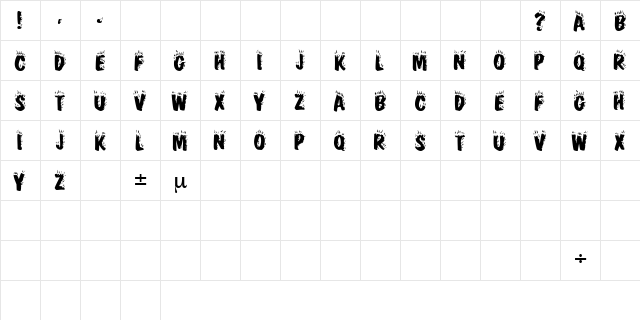
FirebugCapsSSi Regular
Design Context for FirebugCapsSSi Typeface
FirebugCapsSSi is a composed and adaptable typeface that performs quietly and consistently across a wide range of design contexts.
Pro Tip: Use FirebugCapsSSi in both headline and body roles to test its range before committing to a single application.